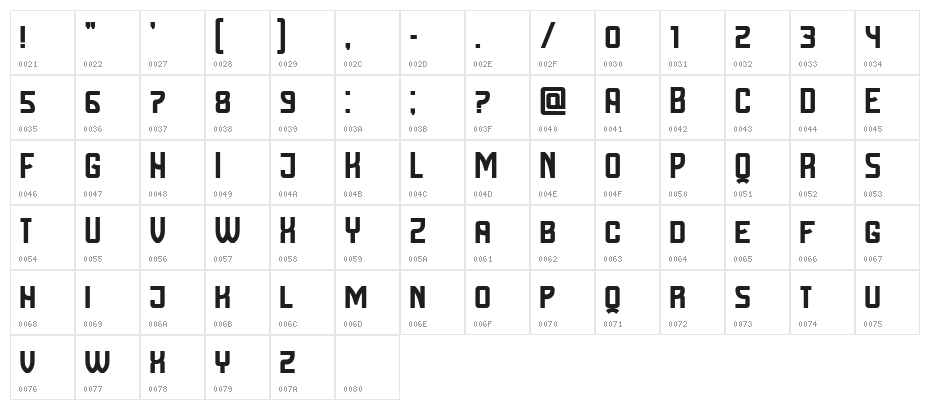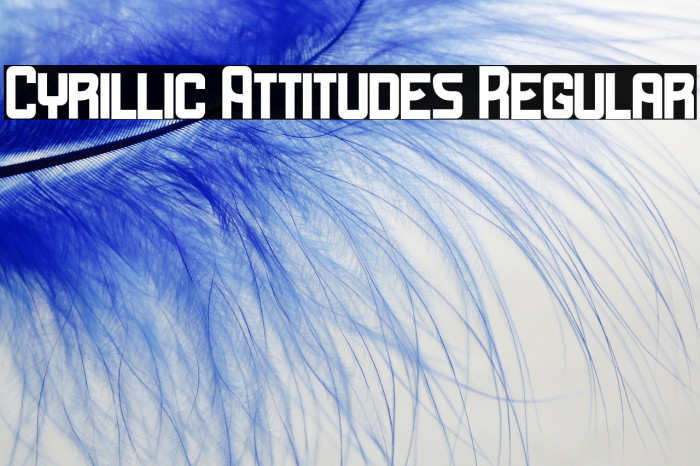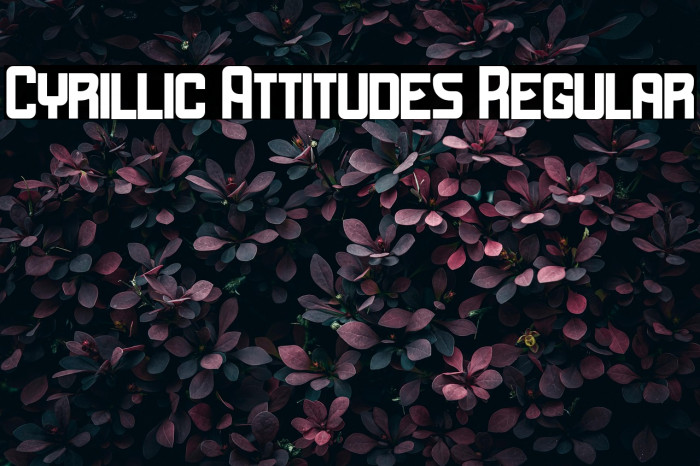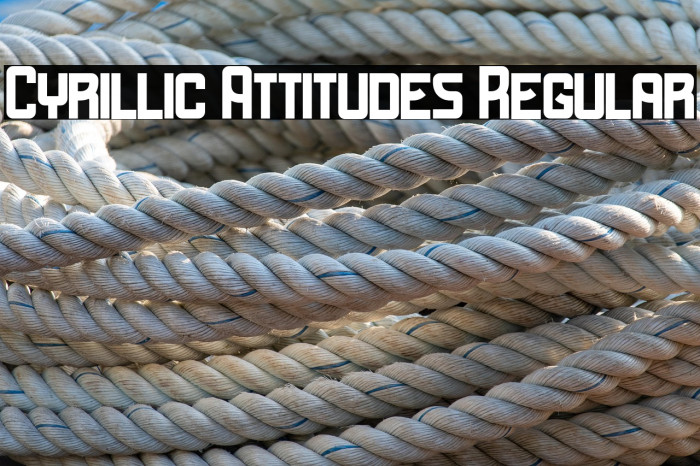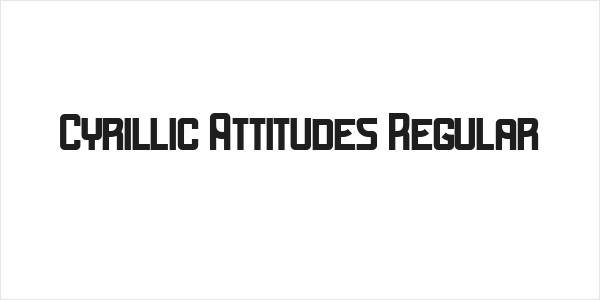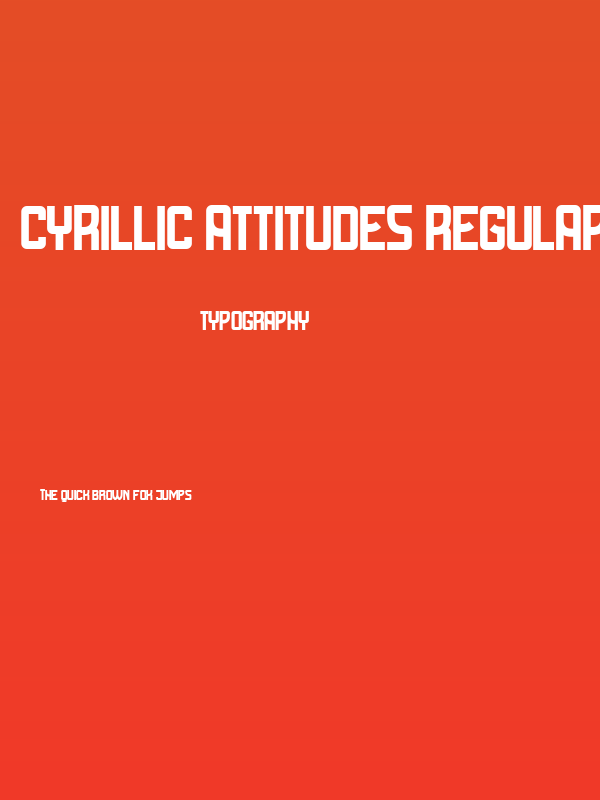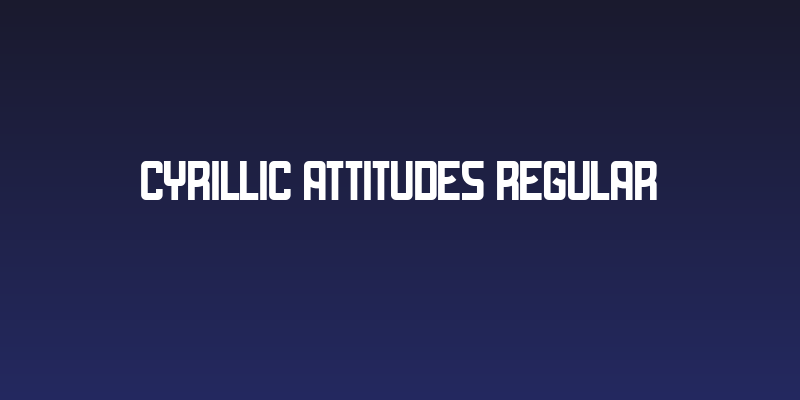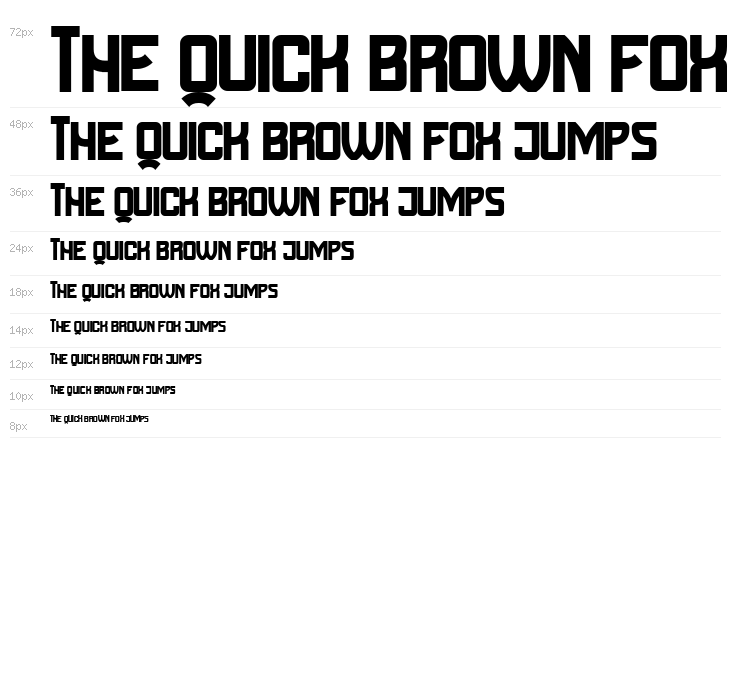
Cyrillic Attitudes Regular Font
Cyrillic Attitudes Regular Description
This font presents a bold and striking appearance with its geometric and angular design. The characters are crafted with a strong emphasis on vertical and horizontal lines, giving it a structured and modern look. The uppercase letters are particularly distinctive, featuring unique cuts and angles that add a sense of dynamism and energy. The numbers and special characters maintain the same boldness and geometric style, ensuring consistency across all elements. This font's design is reminiscent of industrial and futuristic aesthetics, making it suitable for projects that require a strong visual impact.